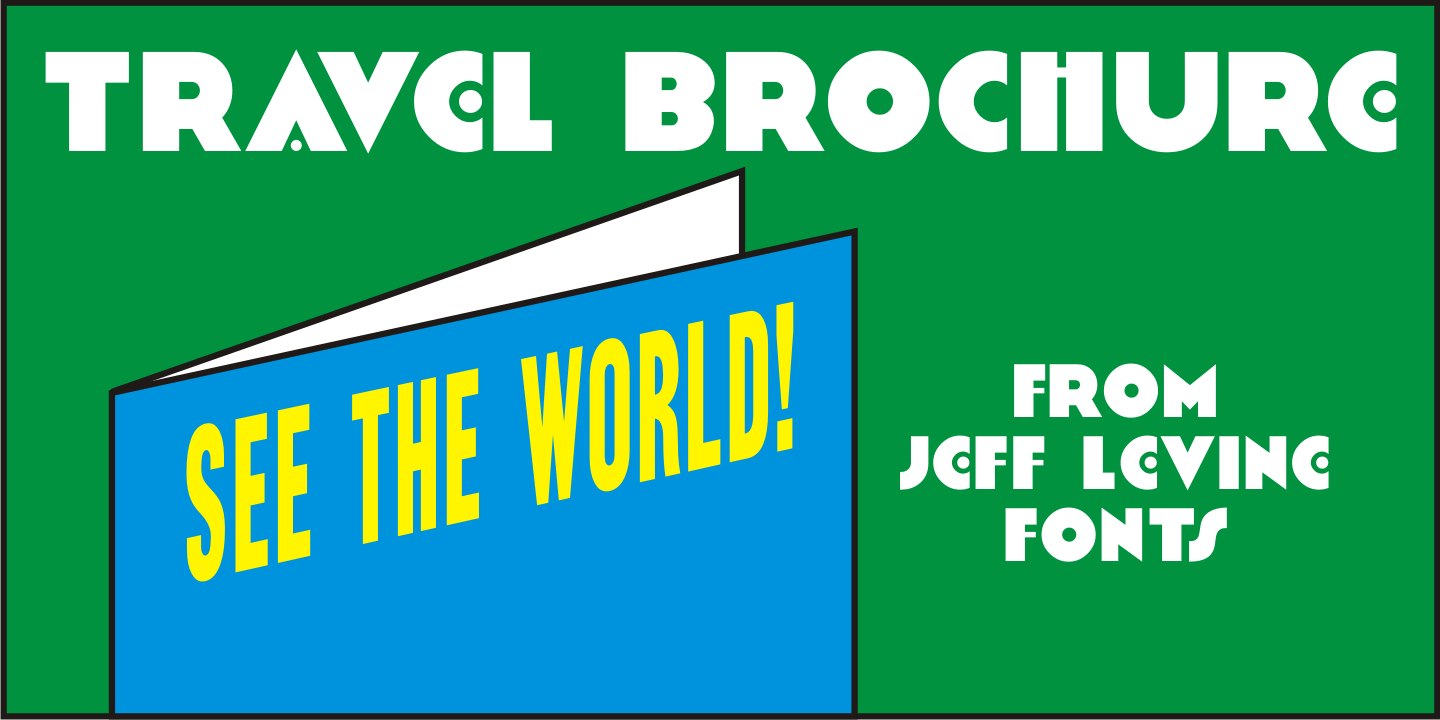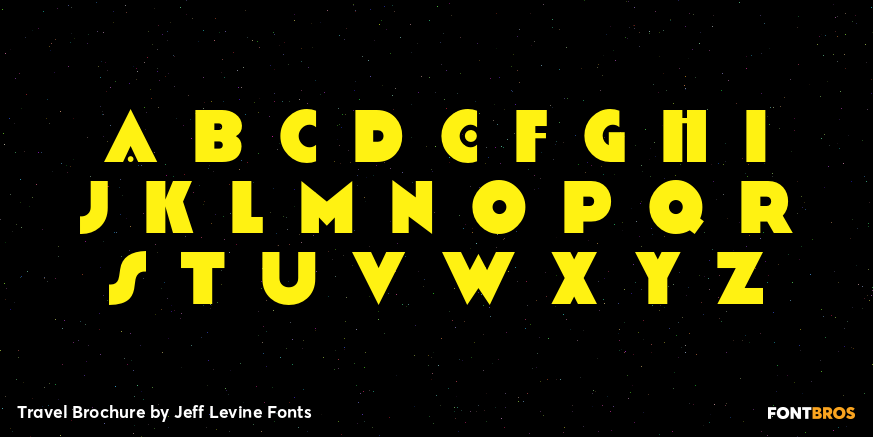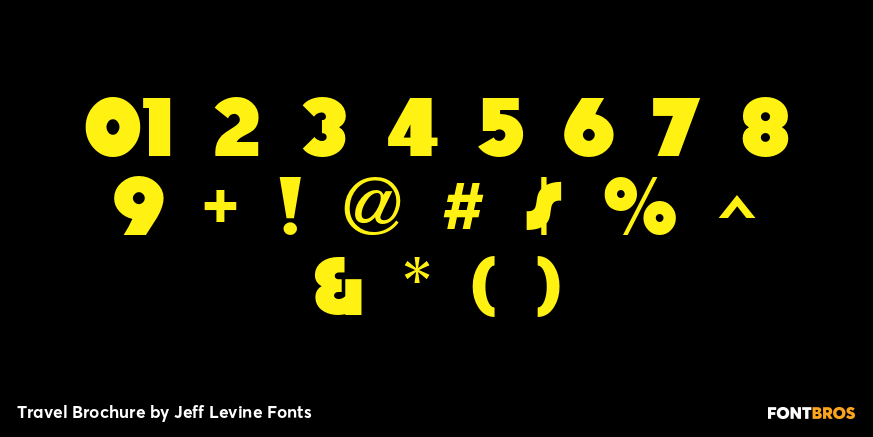
Travel Brochure
A vintage booklet from the Japan Tourist Bureau entitled 'How to See Matsushima and Environs' had the title hand lettered in the Art Deco style which is the basis for Travel Brochure JNL.
For those who prefer a more traditional 'E', it is located on the broken bar keystroke.